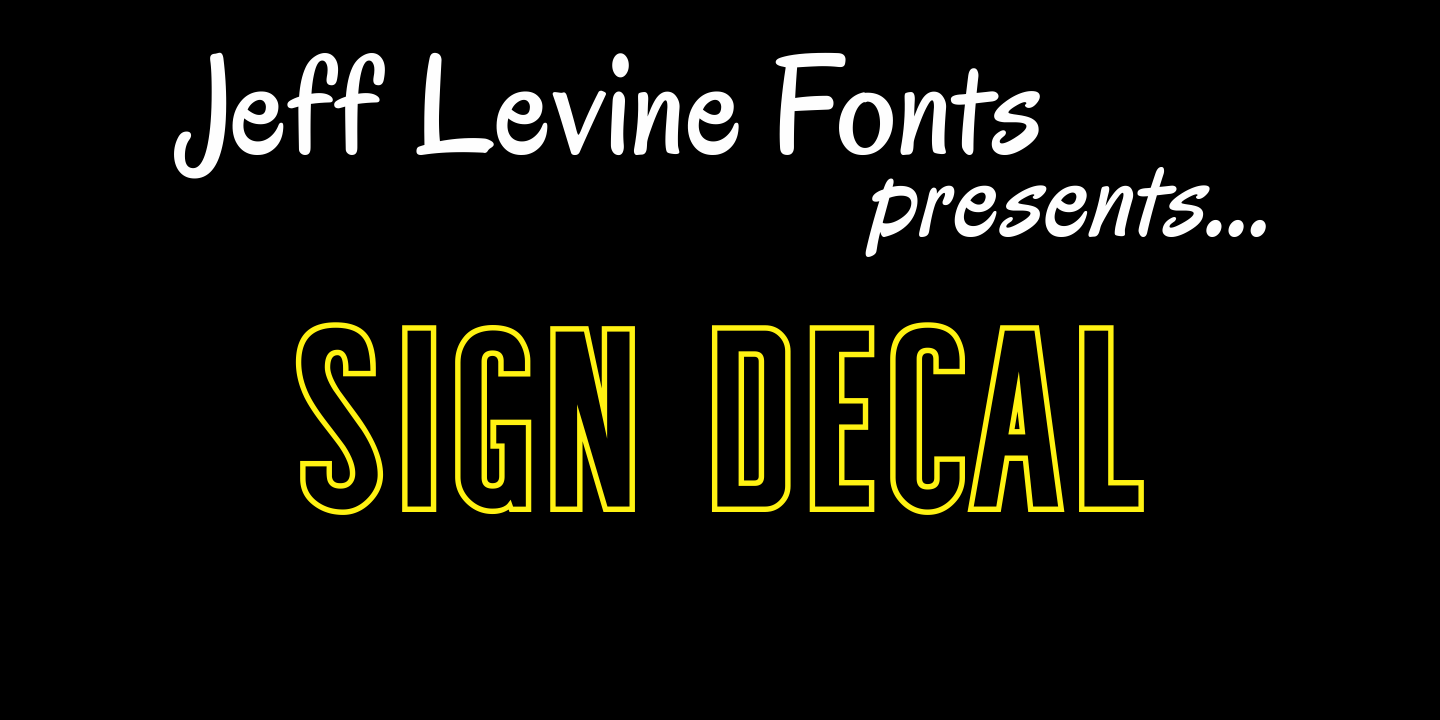
Sign Decal
Sign Decal JNL is an outline version of Sheldrake JNL - lettering based on original water-applied decal transfers once made by the Duro Decal Company (now Duro Art Industries) of Chicago.